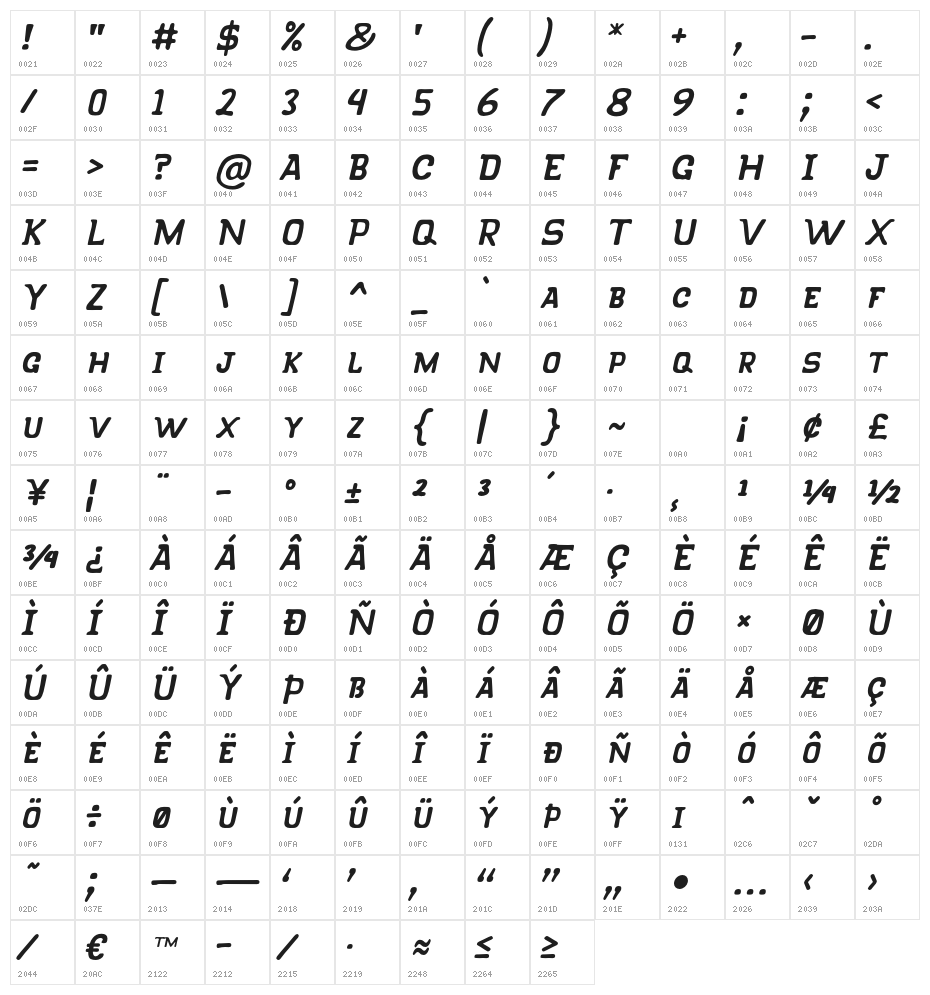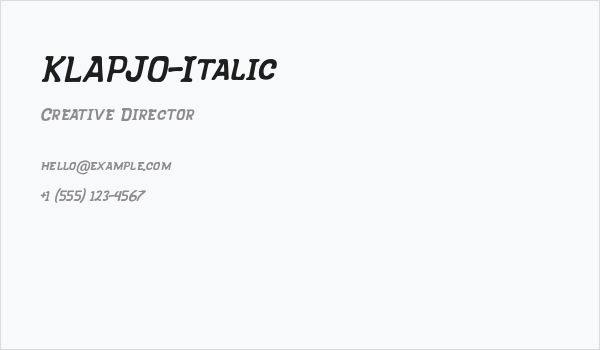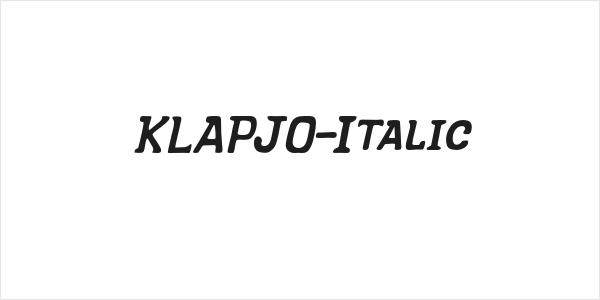
KLAPJO-Italic Font
KLAPJO-Italic Description
This font features a dynamic and energetic style with a slight slant, giving it an italicized appearance. The characters are bold and have a strong presence, making them stand out prominently. The strokes are consistent in thickness, providing a uniform look across all characters. The font has a modern flair with a touch of playfulness, evident in the rounded edges and smooth curves. It includes a full set of uppercase letters, numbers, and a variety of special characters, making it versatile for different uses. The overall design is clean and legible, suitable for both digital and print media.
Proposed ProjectsIdeal for branding, advertising, headlines, and posters where a bold statement is needed.